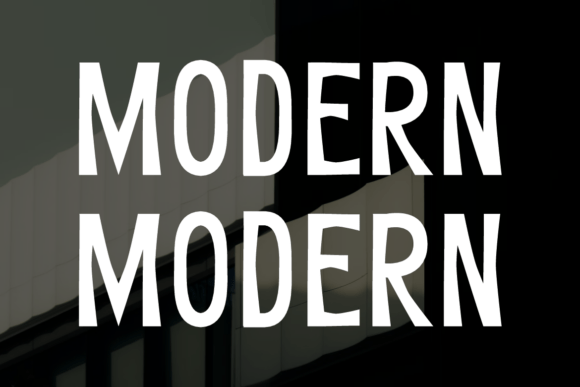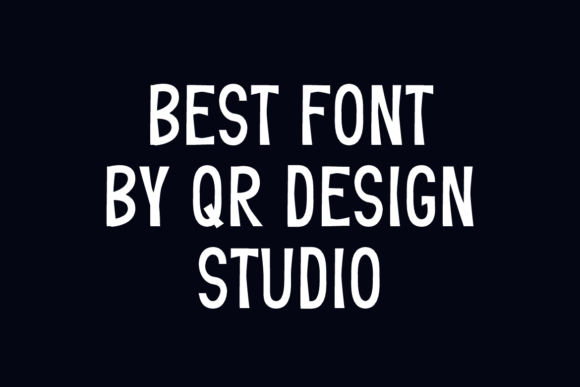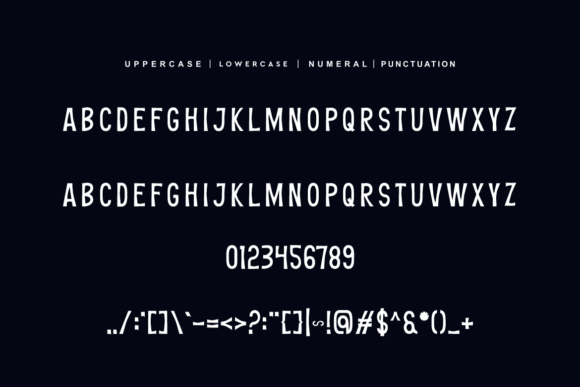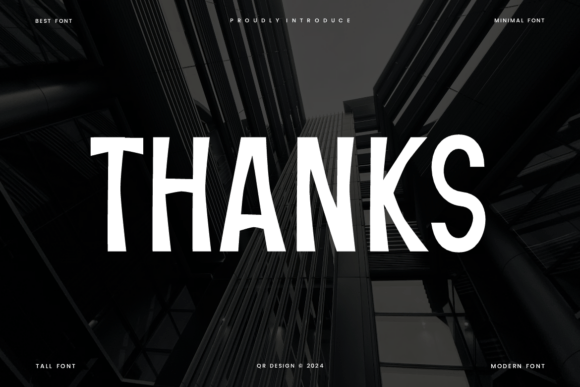
Anoxgen Font: Elevate Your Designs with a Bold and Assertive Sans Serif Font
In the world of typography, a font can make or break a design. A good font can elevate your creation, making it stand out from the crowd, while a poor font choice can detract from the overall impact. If you’re a designer or crafter looking for a font that packs a punch, look no further than Anoxgen. This bold and assertive sans serif font is an incredible asset to any font library, and we’re excited to dive into its features and benefits.
What is Anoxgen Font?
Anoxgen is a modern sans serif font designed to make a statement. Its bold and assertive style makes it perfect for a wide range of applications, from headlines and titles to logos and branding. The font’s clean lines and geometric shape give it a sleek and contemporary look that’s sure to grab attention.
Key Features of Anoxgen Font
- Bold and Assertive: Anoxgen’s bold style makes it perfect for creating eye-catching headlines and titles.
- Sans Serif: The font’s clean lines and geometric shape give it a modern and sleek look.
- Versatile: Anoxgen can be used for a wide range of applications, from logos and branding to packaging and advertising.
- Easy to Read: Despite its bold style, Anoxgen is easy to read, making it perfect for body text as well as headlines.
Benefits of Using Anoxgen Font
So why should you choose Anoxgen for your next design project? Here are just a few benefits of using this incredible font:
- Elevate Your Designs: Anoxgen’s bold and assertive style is sure to elevate your designs, making them stand out from the crowd.
- Save Time: With Anoxgen, you can create professional-looking designs in no time. Its easy-to-read style and versatile nature make it perfect for a wide range of applications.
- Increase Brand Recognition: A unique and memorable font like Anoxgen can help increase brand recognition, setting your brand apart from the competition.
Who Can Benefit from Anoxgen Font?
Anoxgen is perfect for a wide range of designers and crafters, including:
- Graphic Designers: Anoxgen is perfect for graphic designers looking to create eye-catching logos, branding, and advertising materials.
- Web Designers: The font’s clean lines and geometric shape make it perfect for web design, from website headers to social media graphics.
- Crafters: Anoxgen is also perfect for crafters, from DIY enthusiasts to professional artists, looking to add a professional touch to their creations.
- Experiment with Different Sizes: Anoxgen looks great in a variety of sizes, from small body text to large headlines.
- Play with Color: The font’s bold style makes it perfect for use with bright, bold colors.
- Mix and Match: Try pairing Anoxgen with other fonts to create a unique and memorable design.
In conclusion, Anoxgen is a bold and assertive sans serif font that’s perfect for designers and crafters looking to elevate their designs. Its versatile nature, easy-to-read style, and sleek geometric shape make it perfect for a wide range of applications. Whether you’re a graphic designer, web designer, or crafter, Anoxgen is an incredible asset to any font library. So why wait? Download Anoxgen today and take your designs to the next level.